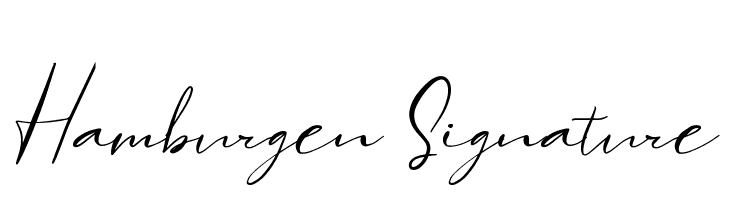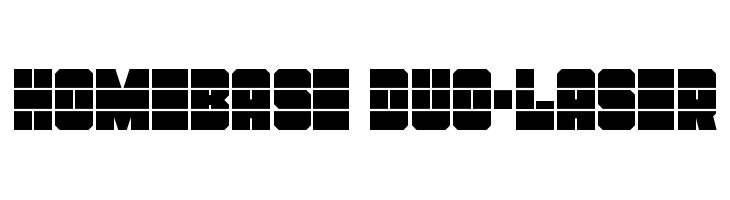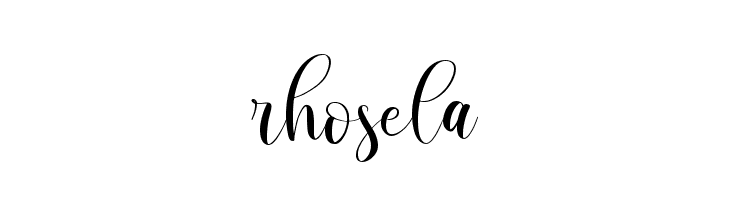
A bold, geometric font with a blocky, futuristic design.
A flowing, cursive italic font with elegant, connected strokes.
An elegant script font with flowing, interconnected letters and a sophisticated style.
A futuristic, geometric font with bold, clean lines and circular elements.
A sleek, light, and italicized font with a modern and elegant appearance.
A bold, extended slab serif font with a strong geometric presence.
An elegant, italicized script font with a handwritten feel.
A modern, geometric sans-serif font with clean lines and balanced proportions.
A playful, casual handwritten font with fluid, connected strokes.
A whimsical cartoon character font with each glyph as a unique illustration.